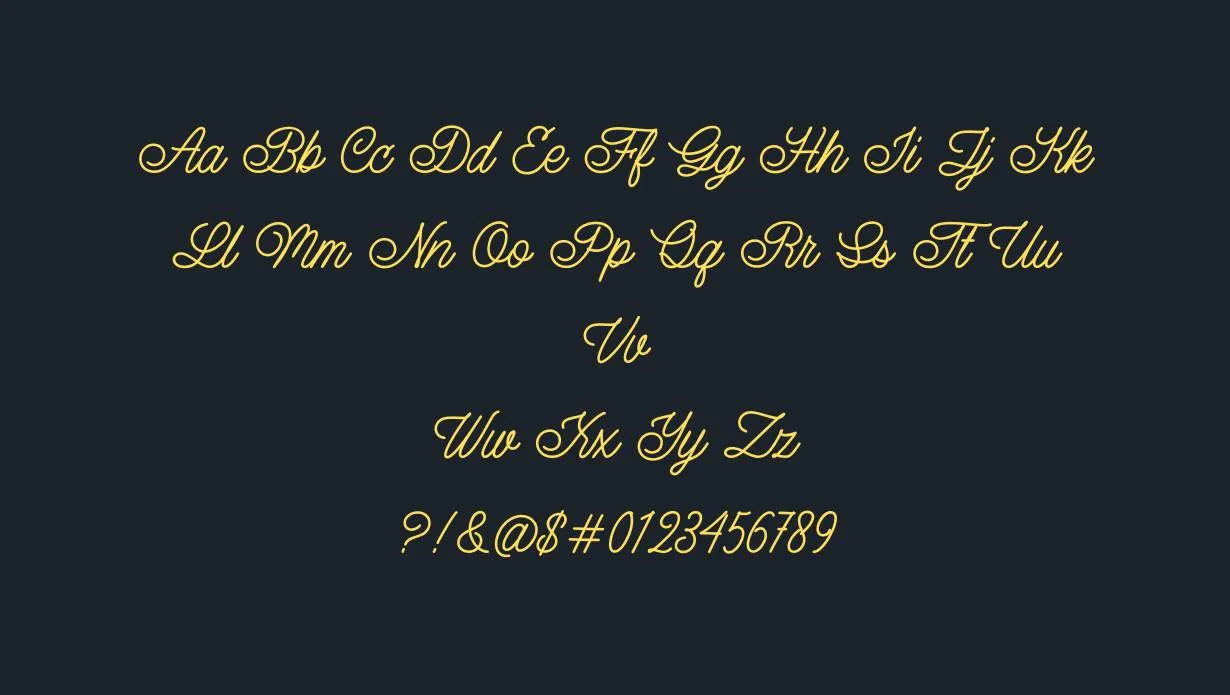
Lazy Ride Font embodies a laid-back and playful vibe, perfect for designs that exude a carefree spirit. Featuring characters like uppercase and lowercase letters, numerals, punctuation, and special characters, it’s versatile for creative projects.
Whether you’re designing quirky posters or fun social media graphics in Canva or Adobe, Lazy Ride Font brings a relaxed charm to your text.